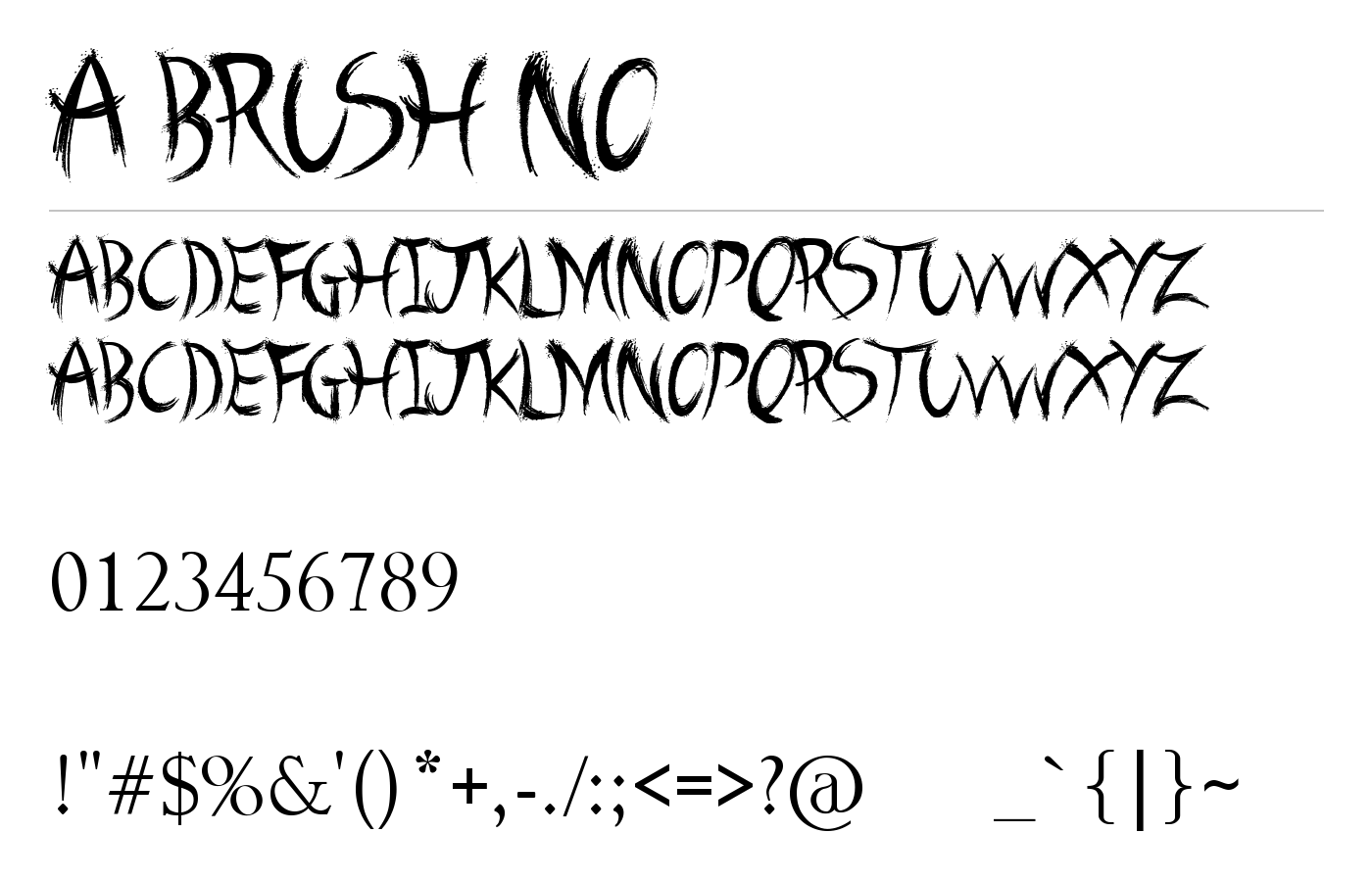
A Brush No Font is a bold, expressive brush script that captures the raw, textured look of hand-painted lettering. Its irregular, dynamic strokes give it an energetic and artistic feel, making it ideal for creative projects that need a personal, edgy touch such as posters, logos, and packaging. This font works best in display settings where its unique brush style can stand out and convey a sense of spontaneity and vibrant personality.
A Brush No Font